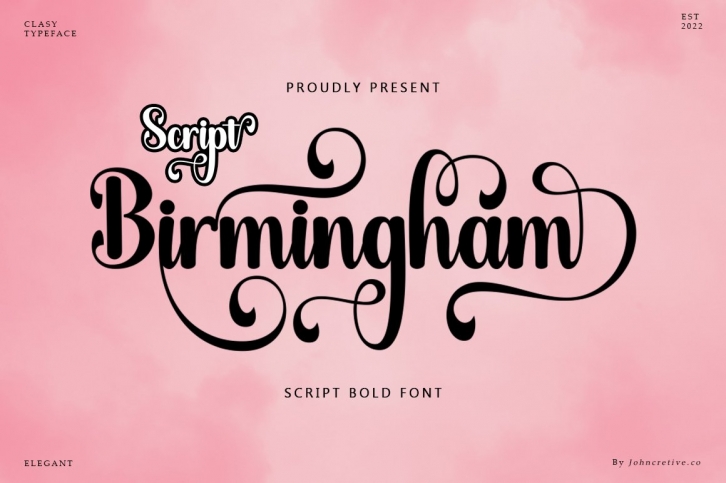
Birmingham Script is a beautiful font that was designed by John Creative. It's a great choice for designers and creatives who need such a font. It was released on January 25, 2022 and the file size is 1.67 MB. Birmingham Script may give a more youthful, expressive and casual look to your project. It is a very beautiful, refined, elegant, and high-quality font.